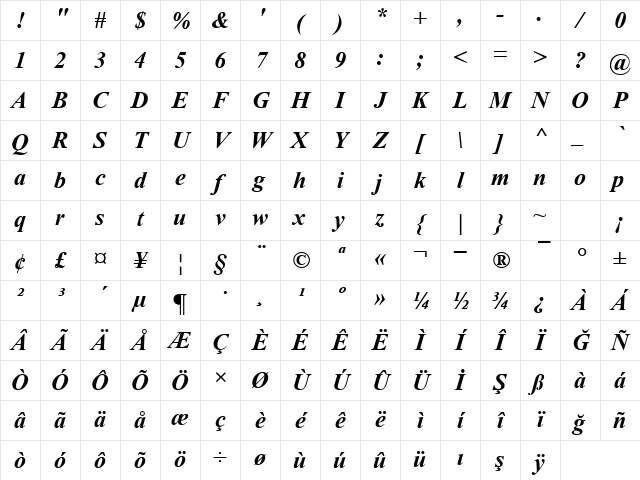
TR Times New Roman Bold Italic
TR Times New Roman Family
Design Context for TR Times New Roman
TR Times New Roman is a composed and adaptable typeface that performs quietly and consistently across a wide range of design contexts. The slanted form adds forward momentum and visual energy. Its bold stroke weight gives it real presence on the page.
Pro Tip: Use TR Times New Roman for emphasis, pull quotes, and subheadings where its slanted energy can add rhythm to the layout.